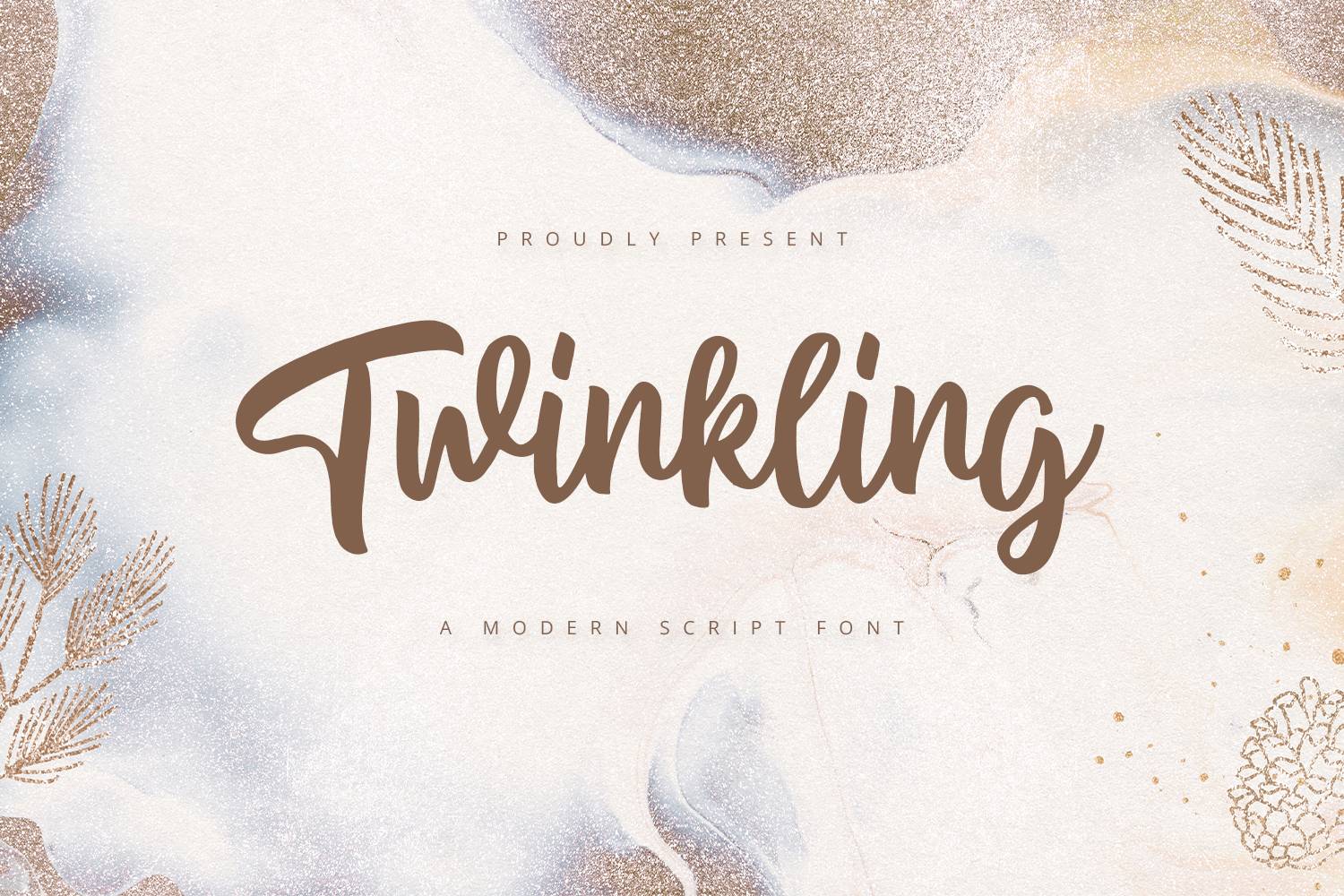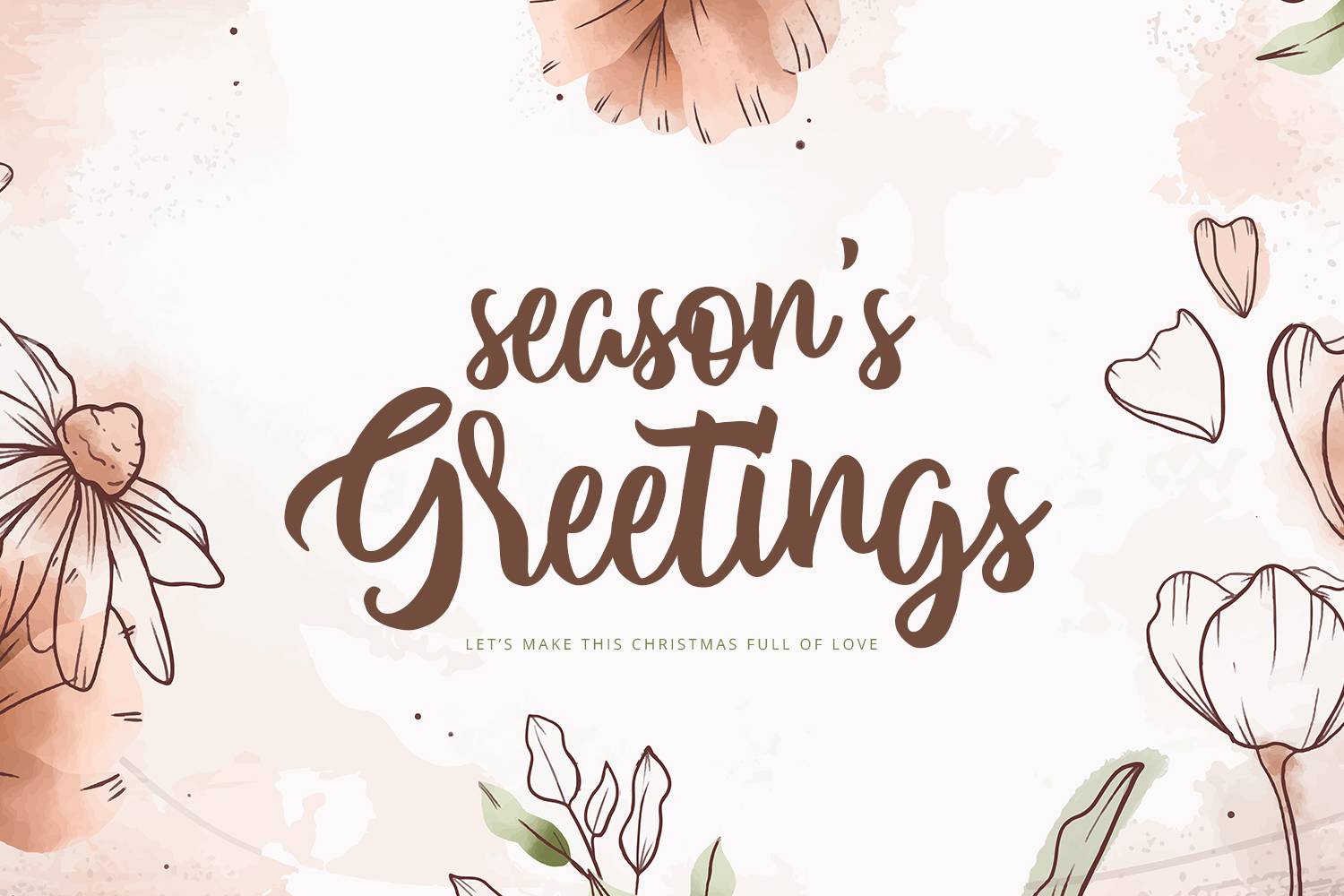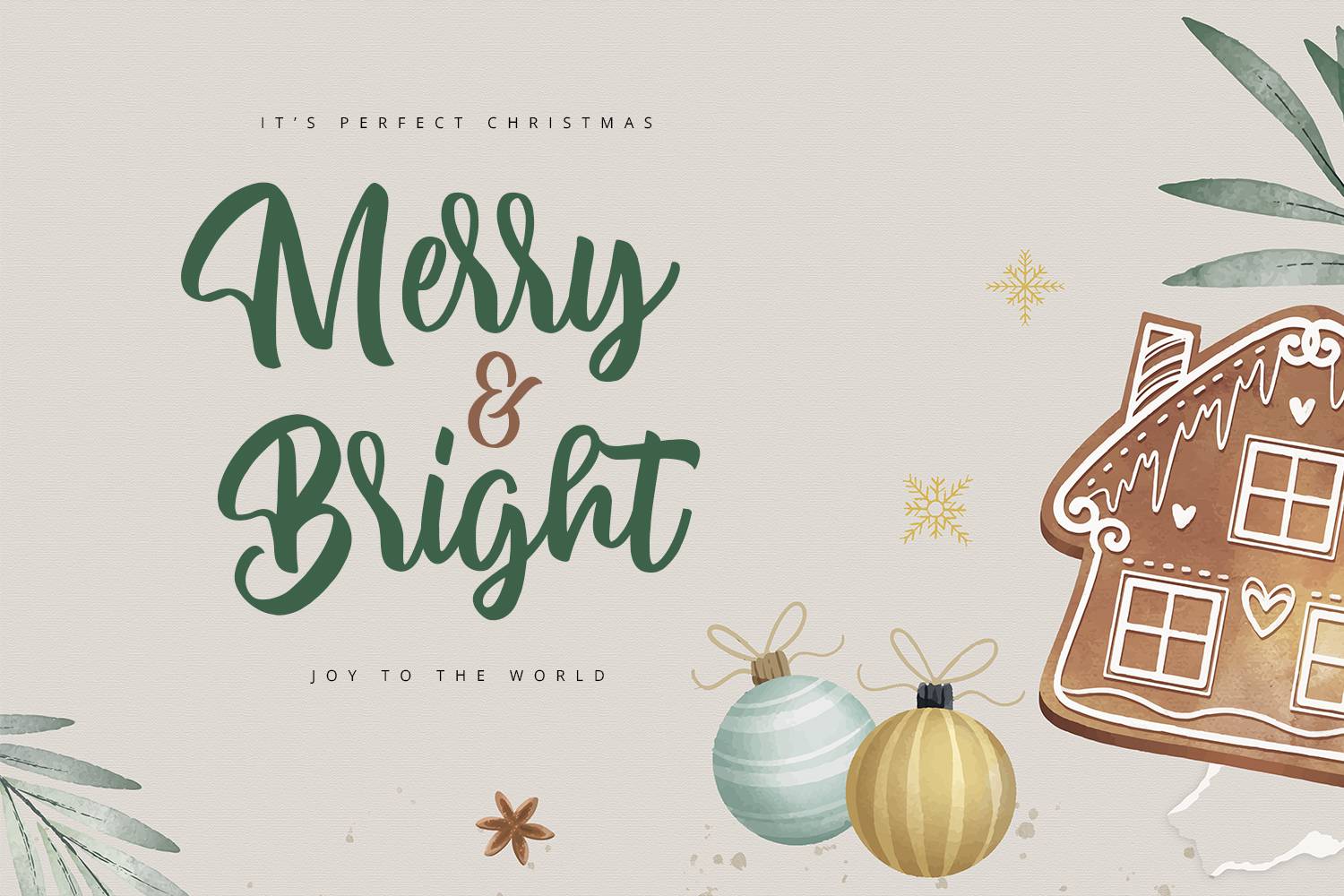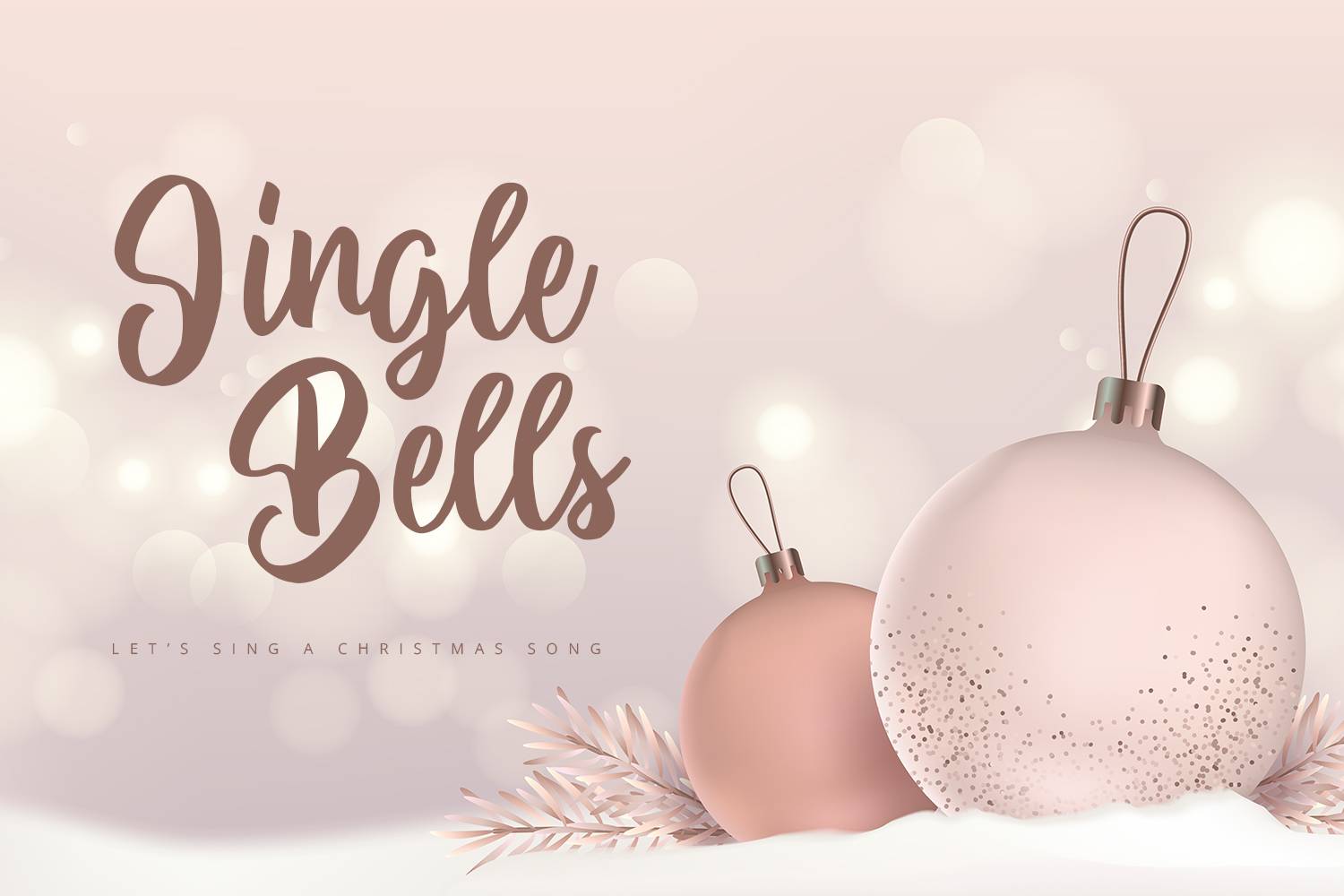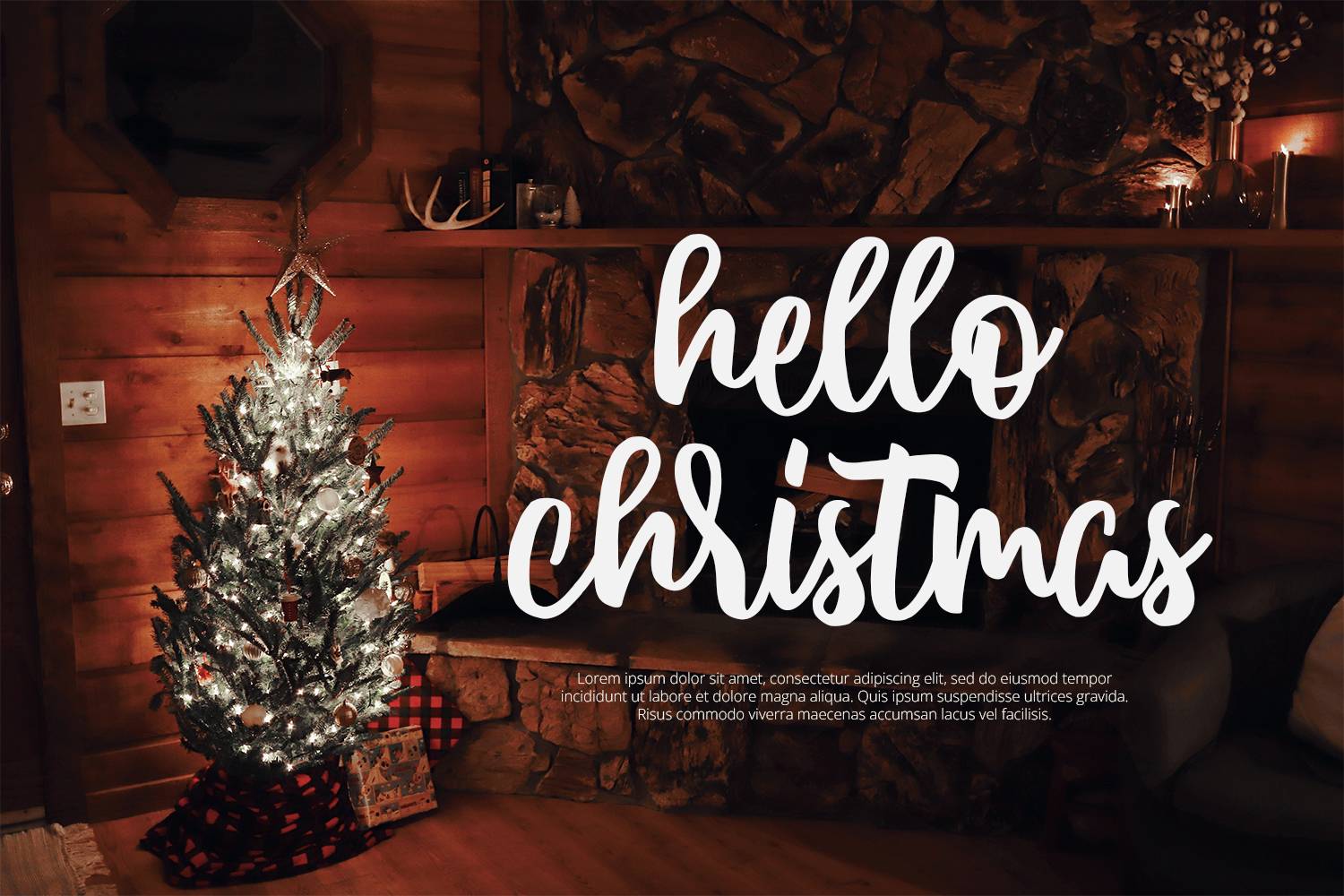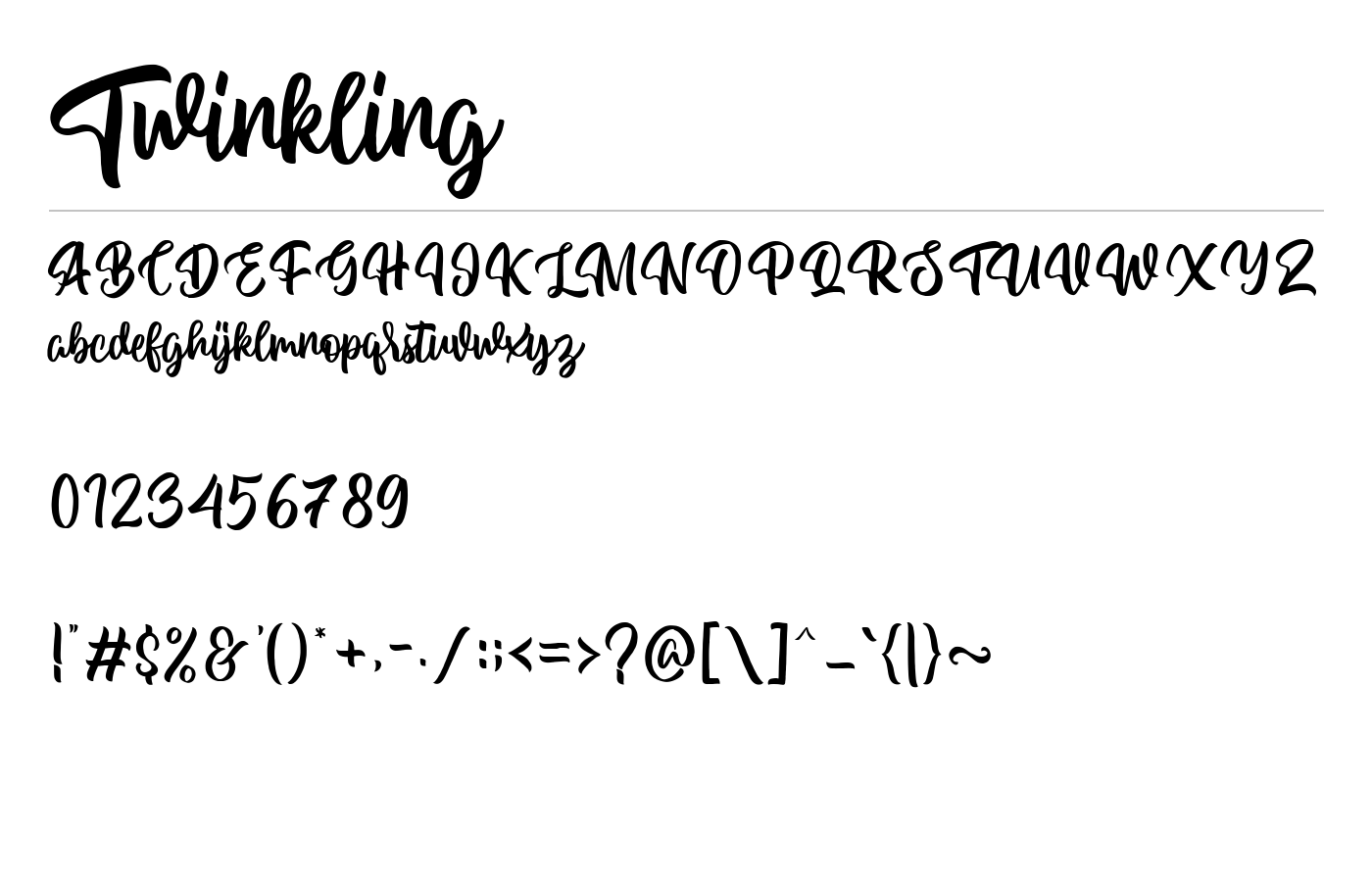
Twinkling Font is a lively and elegant script typeface with smooth, flowing strokes and a friendly, handwritten feel. It features a moderate weight with consistent stroke contrast and charming letterforms that make it ideal for invitations, branding, and creative projects where a personal touch is desired. This font works beautifully in headlines, logos, or any design seeking a warm, approachable, yet stylish vibe.
Twinkling Font